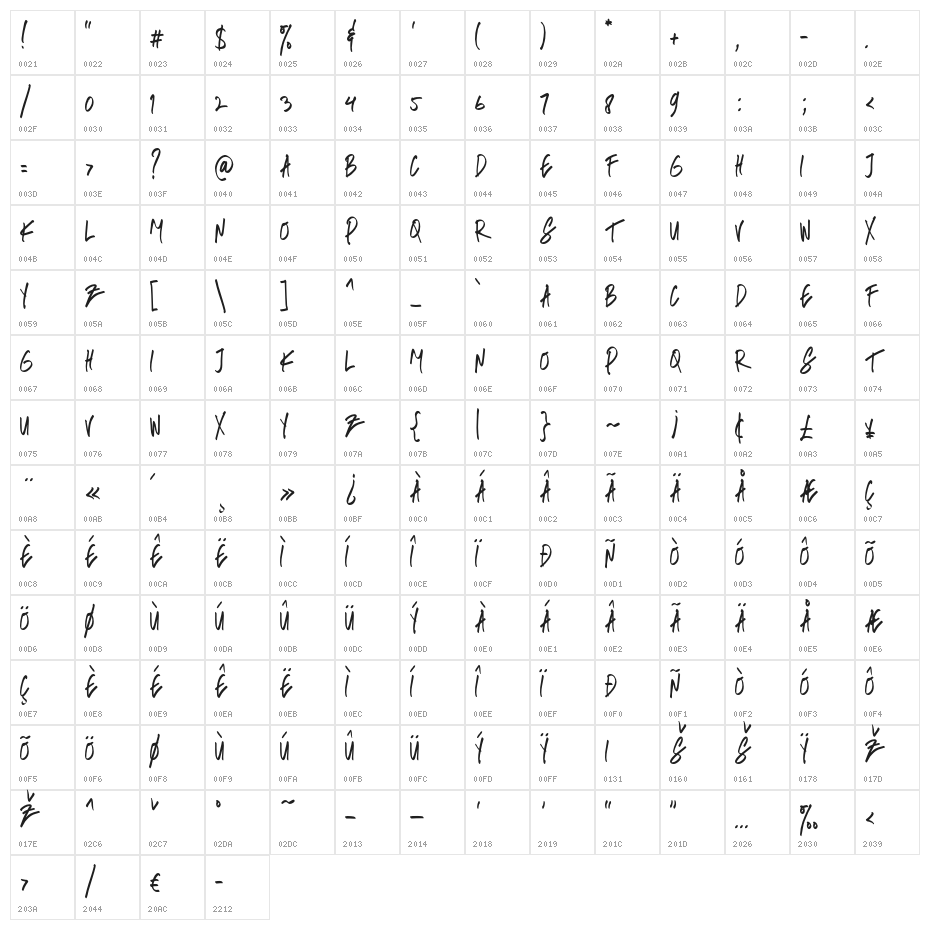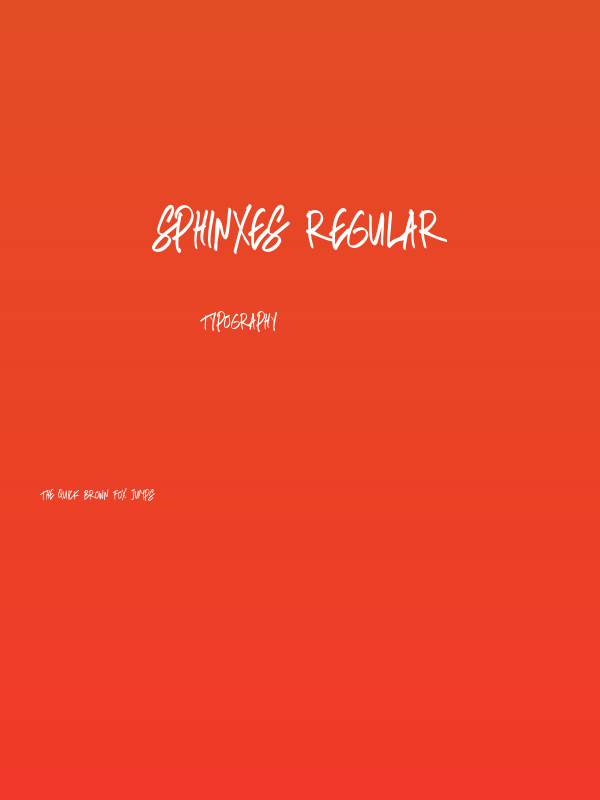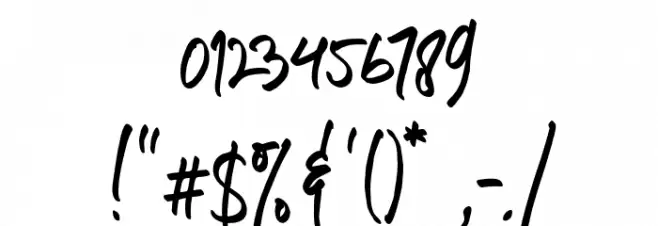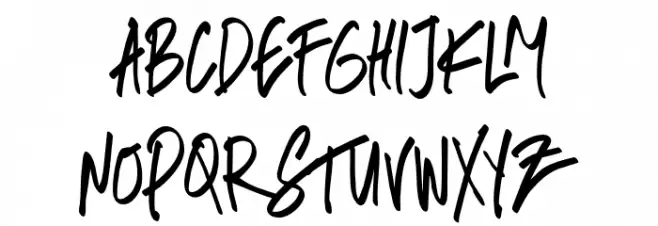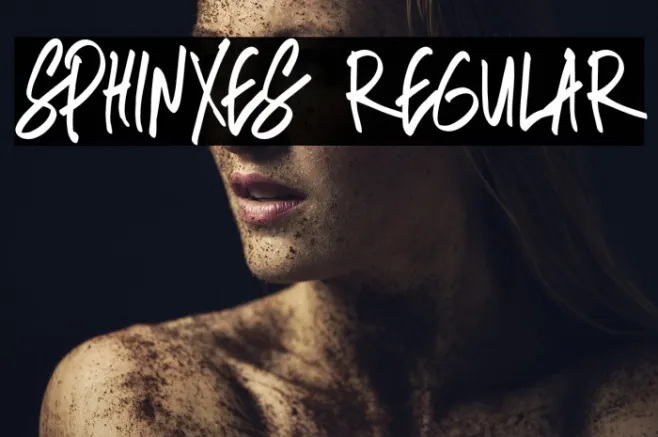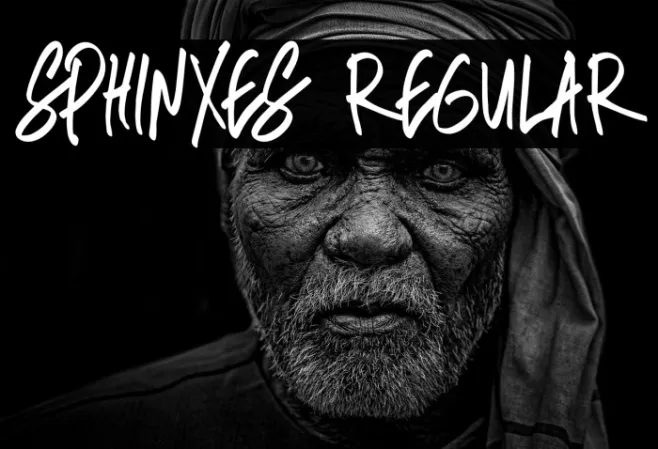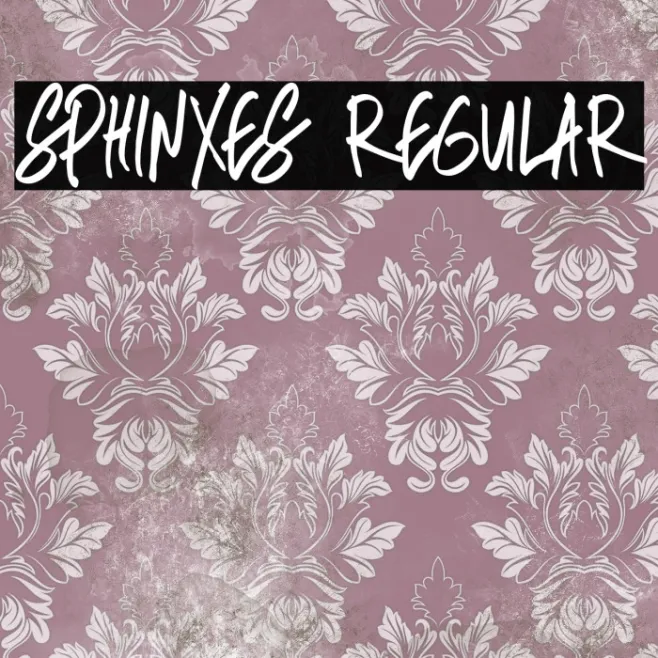
Sphinxes Regular Font
Sphinxes Regular Description
A dynamic, handwritten font with a casual and energetic style, featuring irregular strokes and a playful appearance.
| Use Case | Logos, Headlines, Informal text |
| Proposed Projects | Greeting cards, invitations, personal branding. |